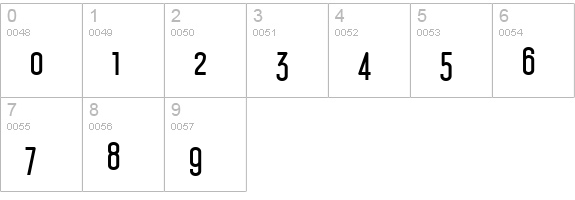
ConcursoItalian BTN Bold Font Details
ConcursoItalian BTN Bold is a strong, high-contrast variant in the ConcursoItalian typeface family \xE2\x80\x94 well suited to headlines, attention-grabbing titles, and strong calls-to-action.
ConcursoItalian BTN Bold font is a sleek and modern typeface that exudes elegance and sophistication. With its bold and eye-catching design, this font is perfect for making a statement in your designs. Whether you're creating a logo, poster, or website, ConcursoItalian BTN Bold font will surely grab the attention of your audience. The best part is, ConcursoItalian BTN Bold font is available for free download at FontsMarket.com. You can easily access this stunning font and elevate your projects with its distinctive style. Don't miss out on this amazing opportunity to enhance your designs with ConcursoItalian BTN Bold font - download it today and take your creations to the next level!